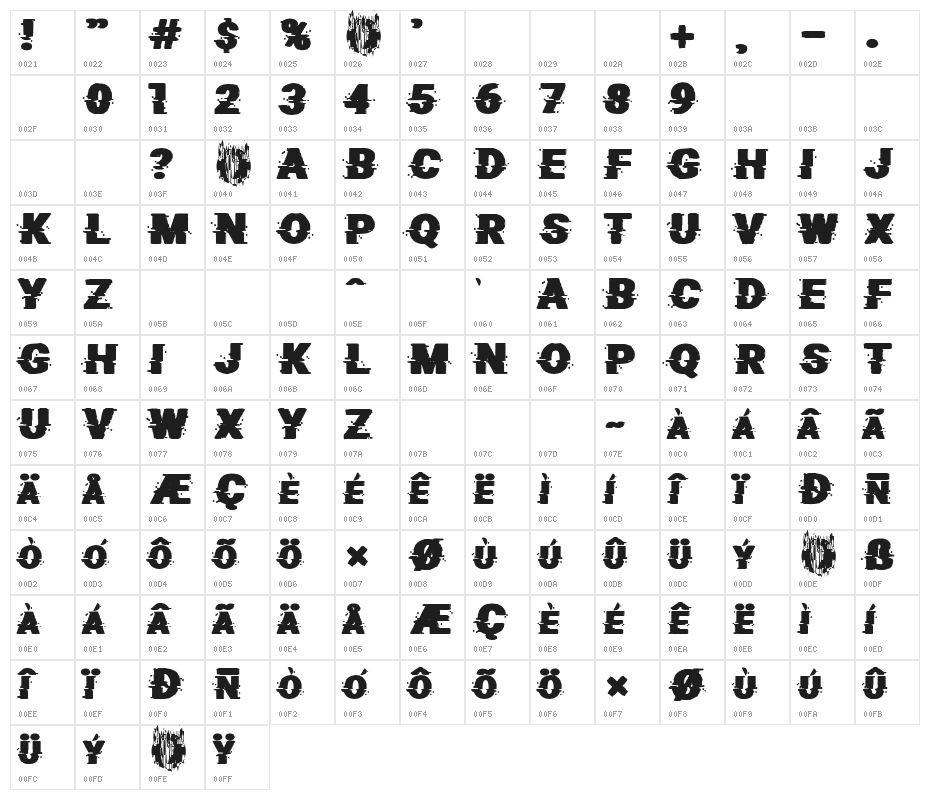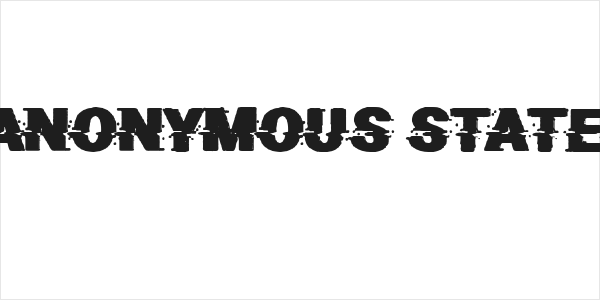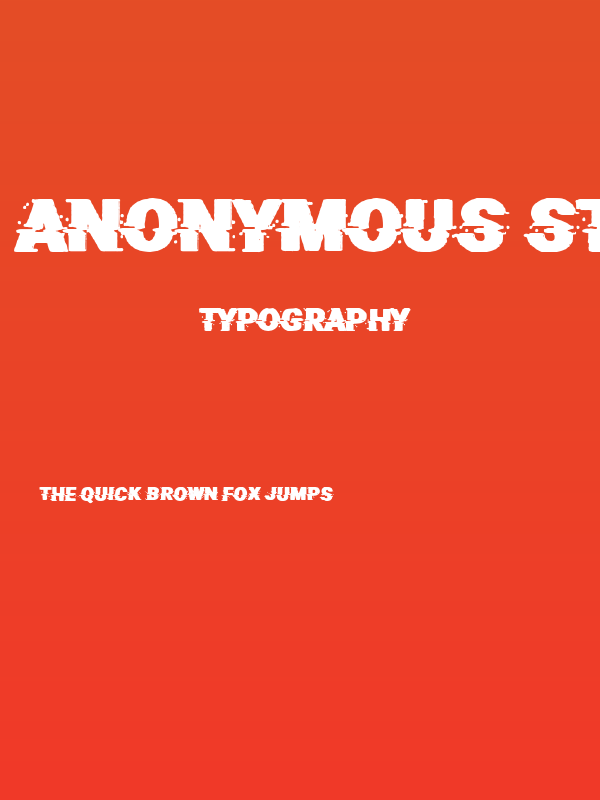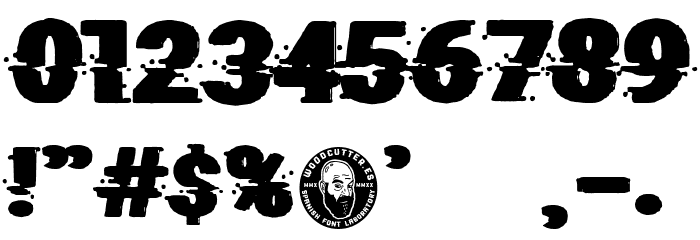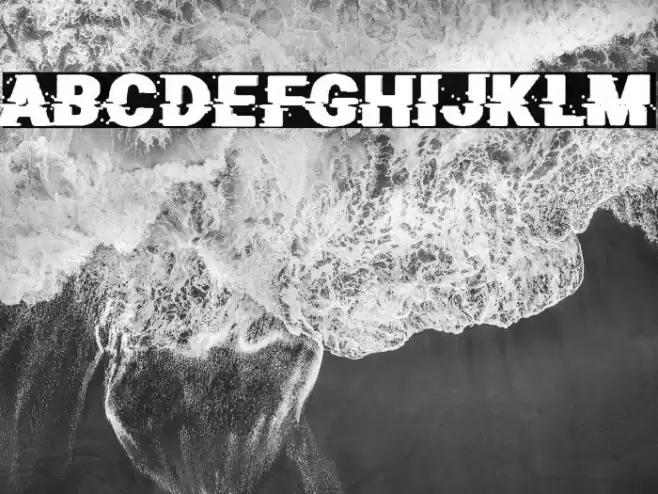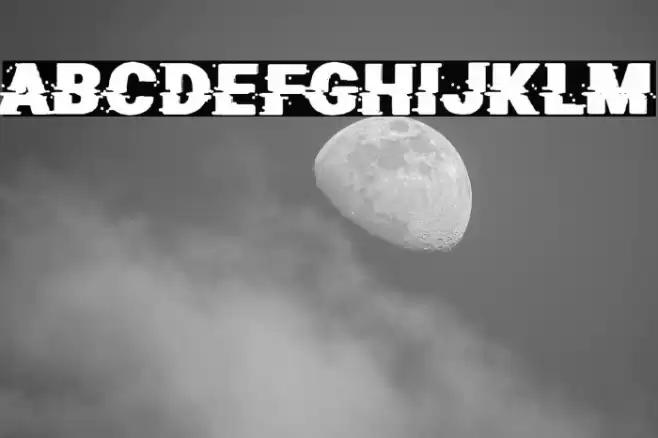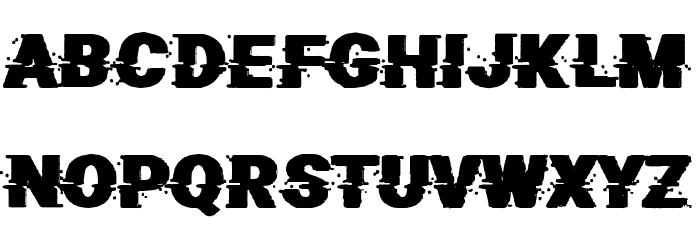
Anonymous State Font
✎ Distorted Eroded
Anonymous State Description
This font features a bold, distressed style with a grunge aesthetic. The characters are heavily textured, giving them a worn and rugged appearance. The uppercase and lowercase letters maintain a consistent weight, while the numbers and special characters follow the same distressed theme. The font's design is reminiscent of urban or industrial settings, making it ideal for projects that require a gritty, edgy look. The boldness of the letters ensures high visibility, while the unique texture adds character and depth.
| Overall Style | Grunge, Urban |
| Proposed Projects | Ideal for music album covers, posters, streetwear branding, and event flyers. |